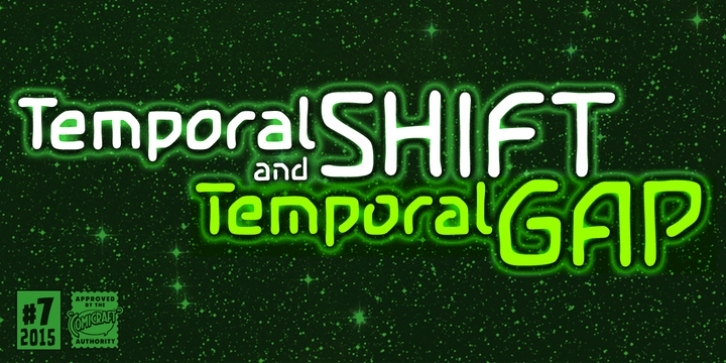
Temporal was designed by John Roshell and published by Comicraft. Temporal contains 12 styles and family package options.
You're trapped in an endless now... seconds seem to be stretching out interminably... There's an eternity between every tick, every tock of the clock... Your consciousness is stretched to the limit as time is expanded to fill the void between each microsecond. There's a signpost up ahead... the letters appear to stretch into infinity. Anyone know the name of the font it's set in?
Temporal Shift & Gap
Temporal Shift & Gap Compressed
Four fonts (Shift Regular, Shift Bold, Gap Regular & Gap Bold) with upper and lowercase characters.